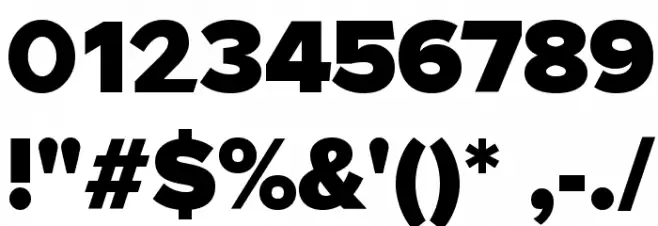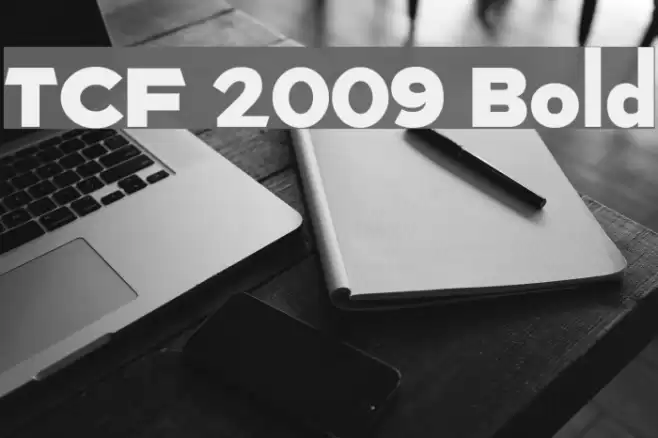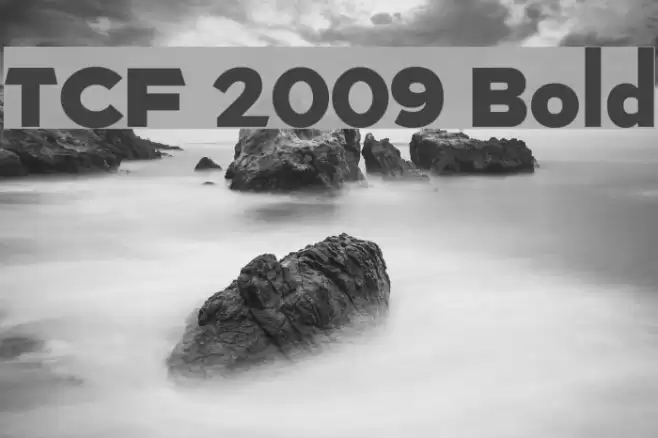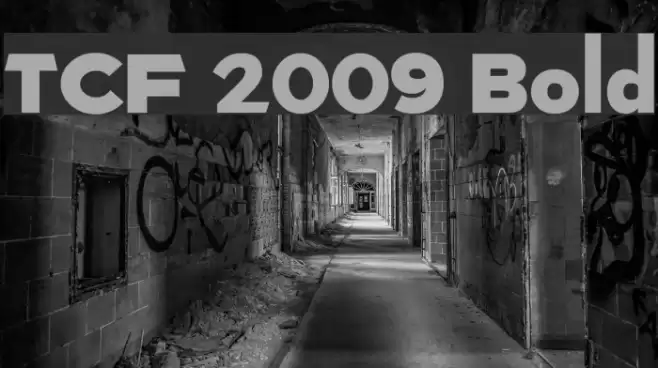
TCF 2009 Bold Font
TCF 2009 Bold Description
This font features bold, strong characters with a modern and impactful design. The uppercase and lowercase letters are well-proportioned, with a consistent stroke width that gives a sense of stability and confidence. The numerals are clear and easily distinguishable, making them suitable for various applications. The special characters are designed to complement the overall style, maintaining the bold and assertive appearance. This font is ideal for making a statement, with its clean lines and powerful presence.
| Proposed Projects | Ideal for headlines, posters, branding, and advertising where a strong visual impact is needed. |